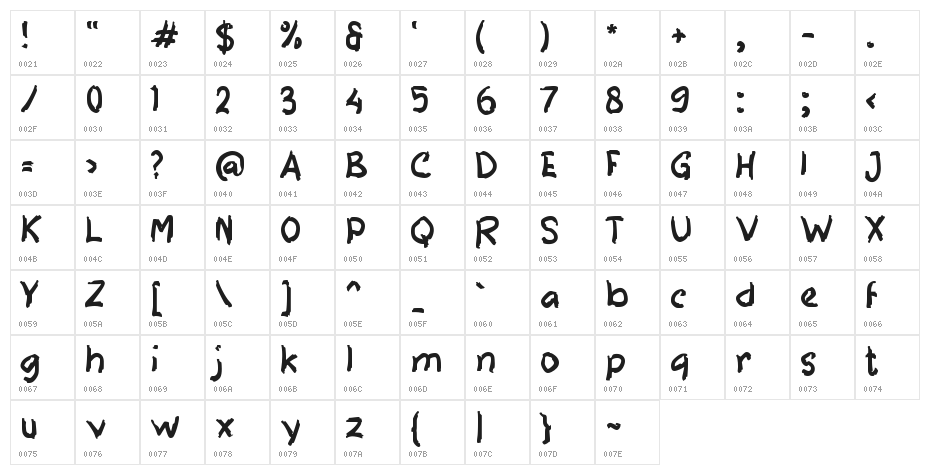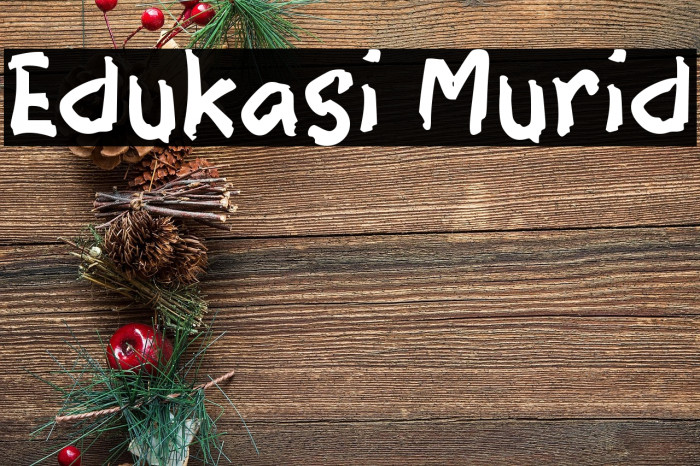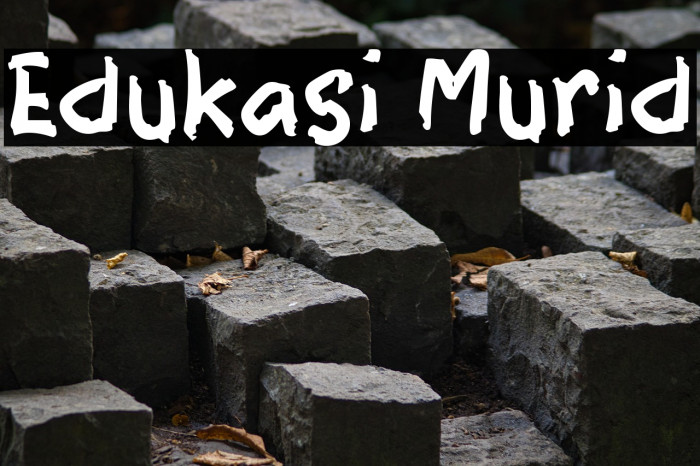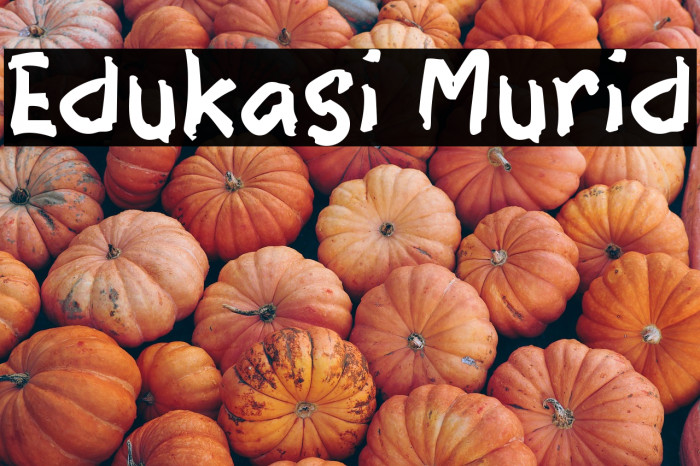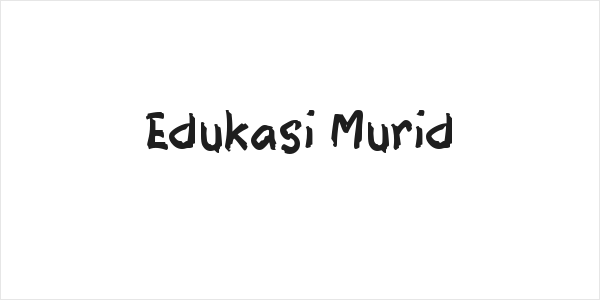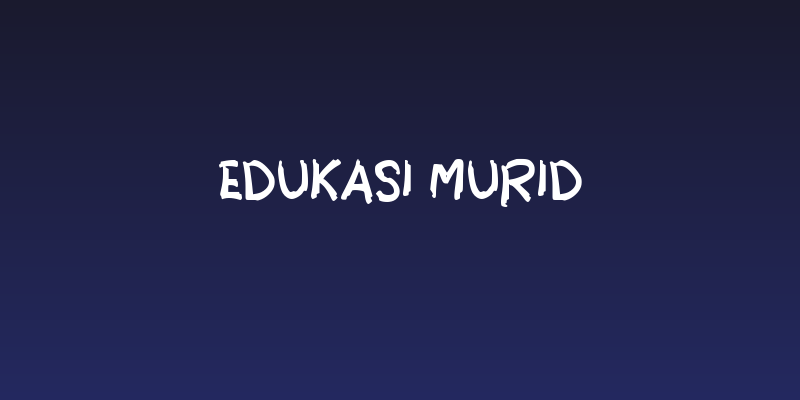
Edukasi Murid Font
Edukasi Murid Description
This font features a playful and energetic style, characterized by its bold, hand-drawn appearance. The letters have a slightly irregular shape, giving them a lively and informal feel. The strokes are thick and consistent, contributing to a strong visual impact. The uppercase and lowercase letters maintain a cohesive look, while the numbers and special characters are designed to match the overall aesthetic. This font is ideal for projects that require a fun and approachable tone, making it suitable for children's books, educational materials, and creative branding.
| Proposed Projects | Children's books, educational materials, creative branding, playful posters. |